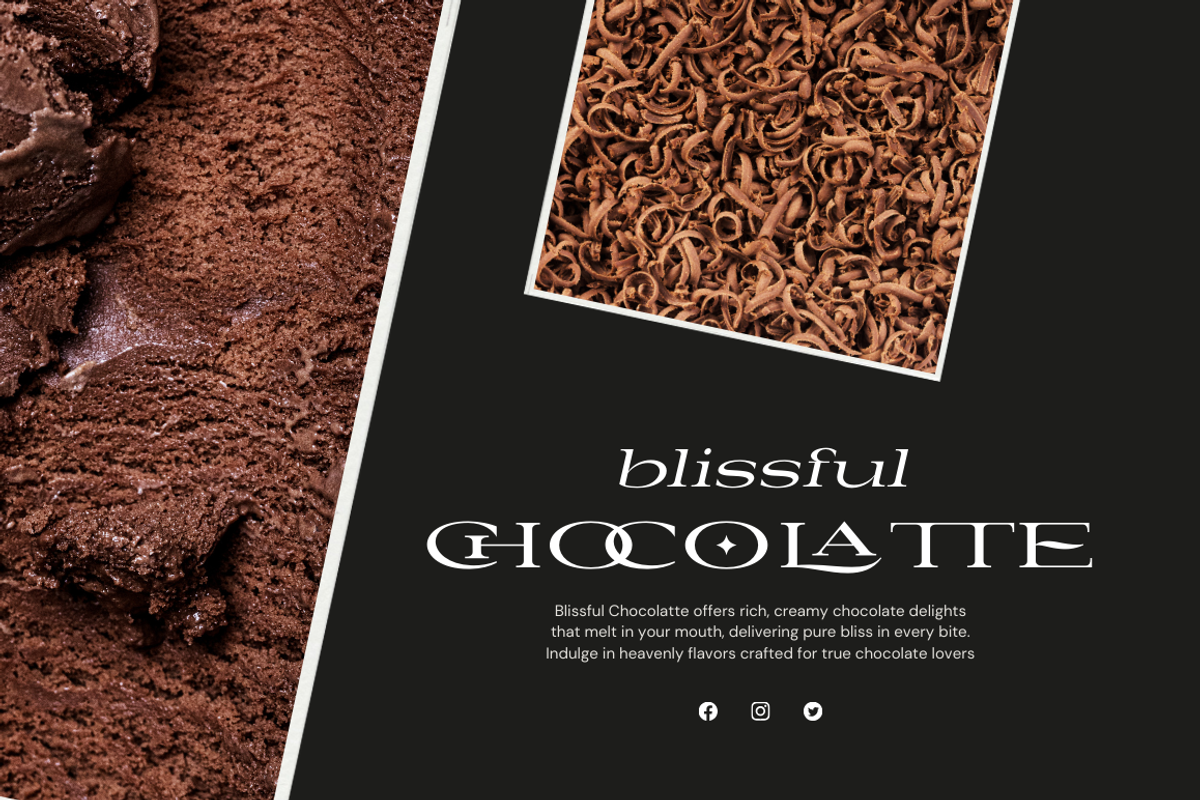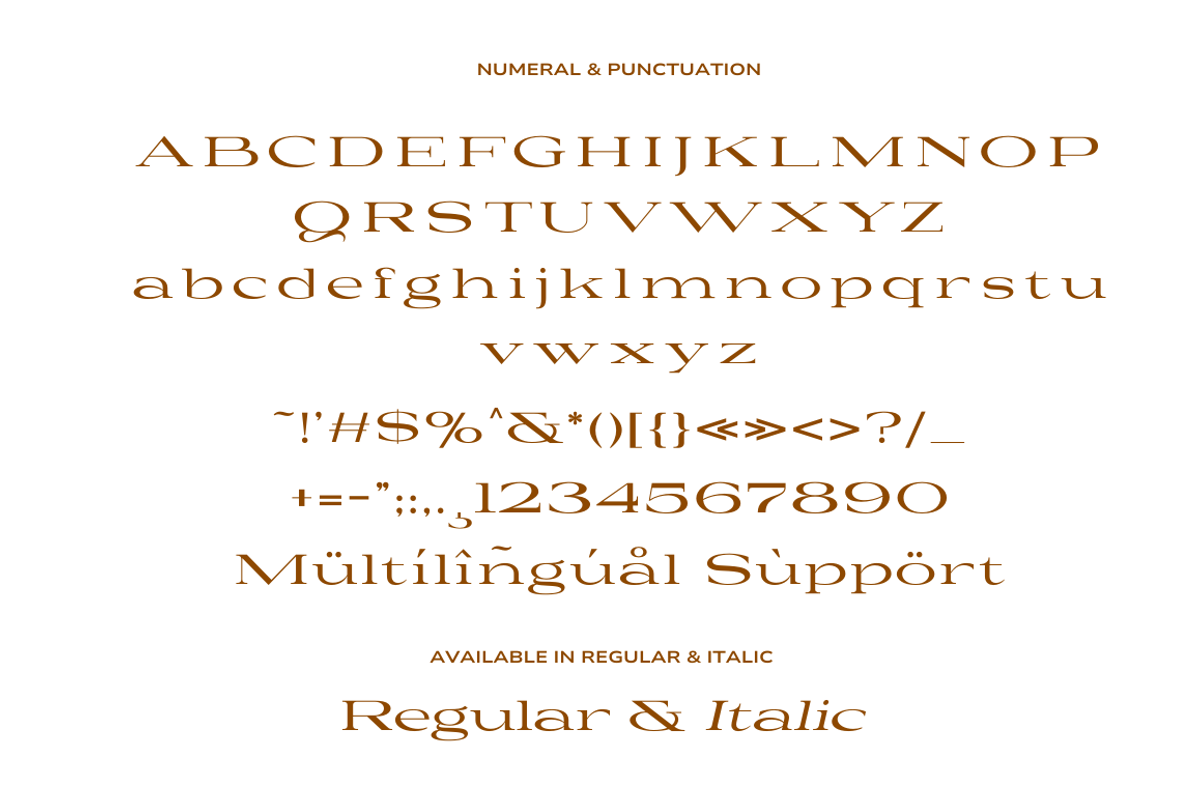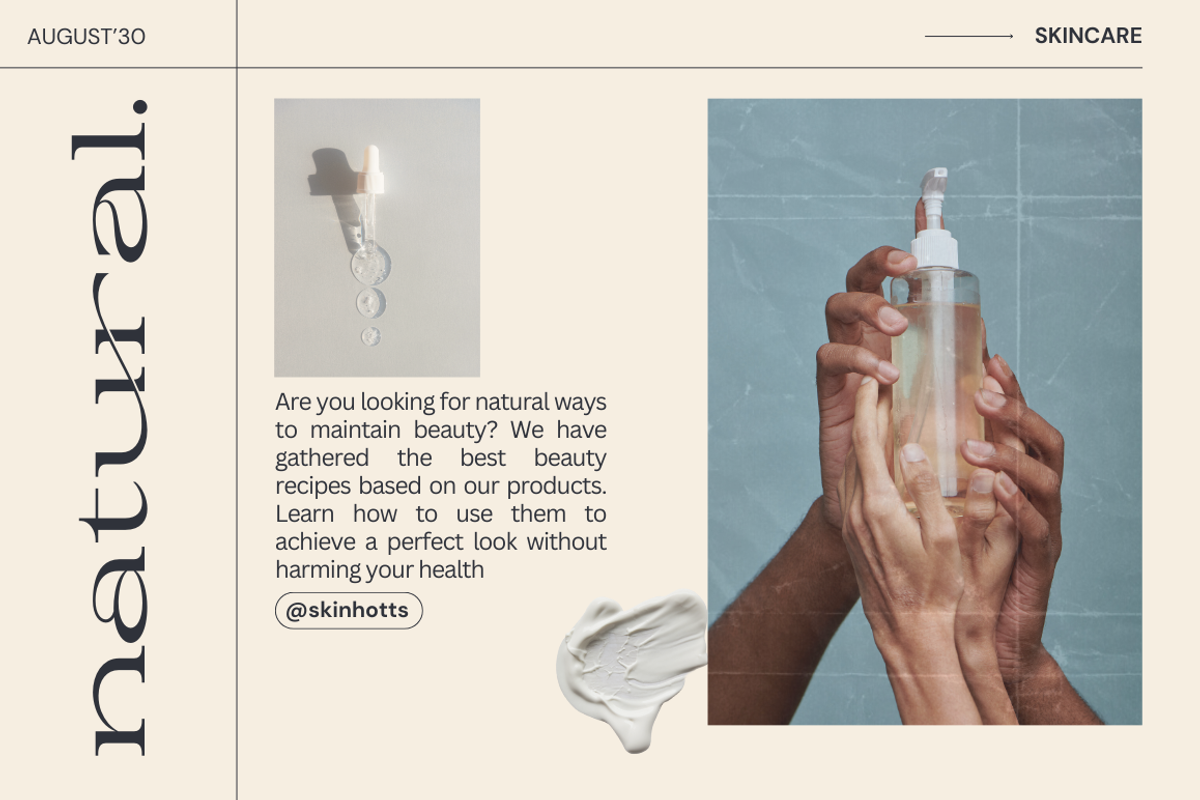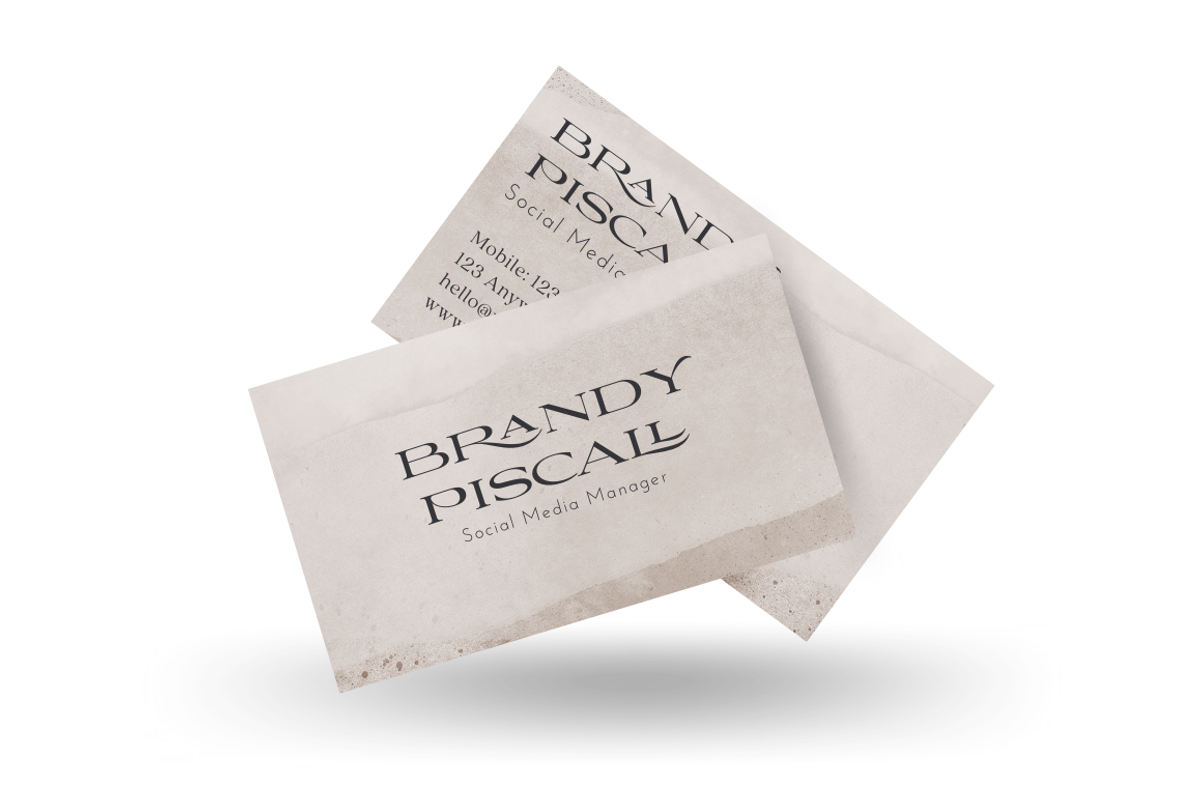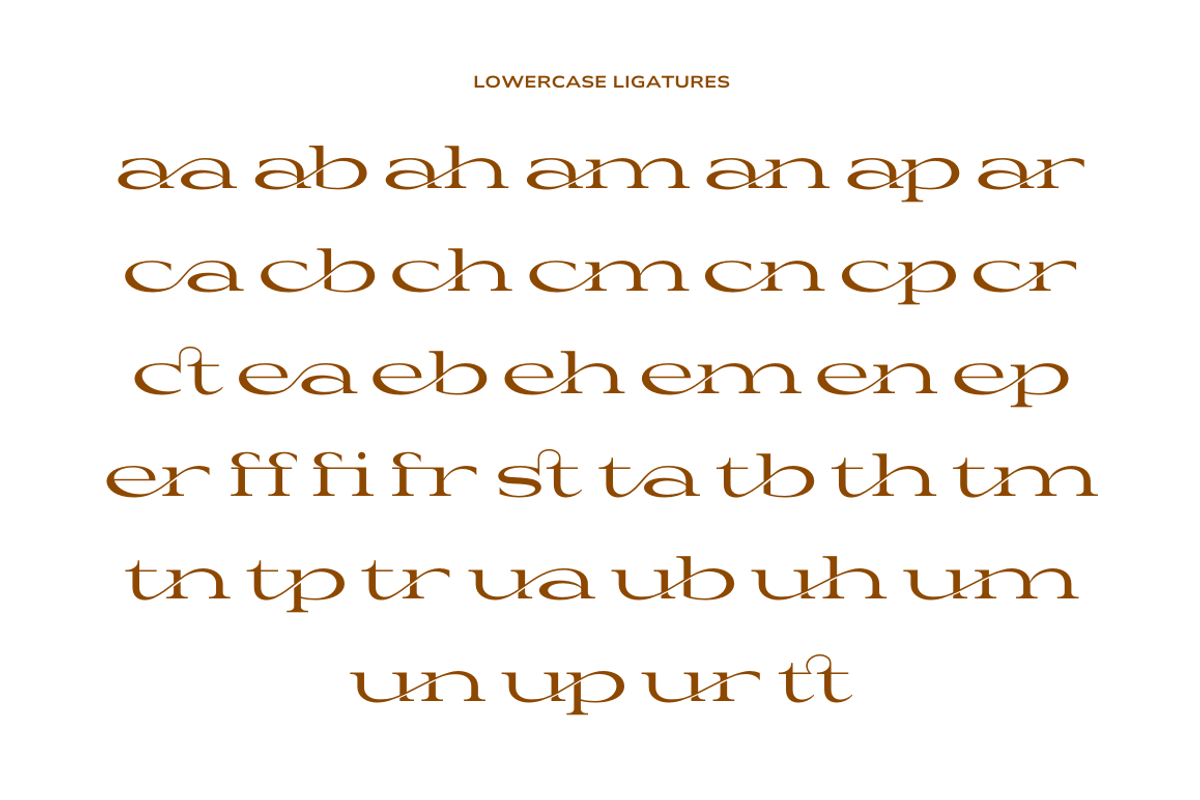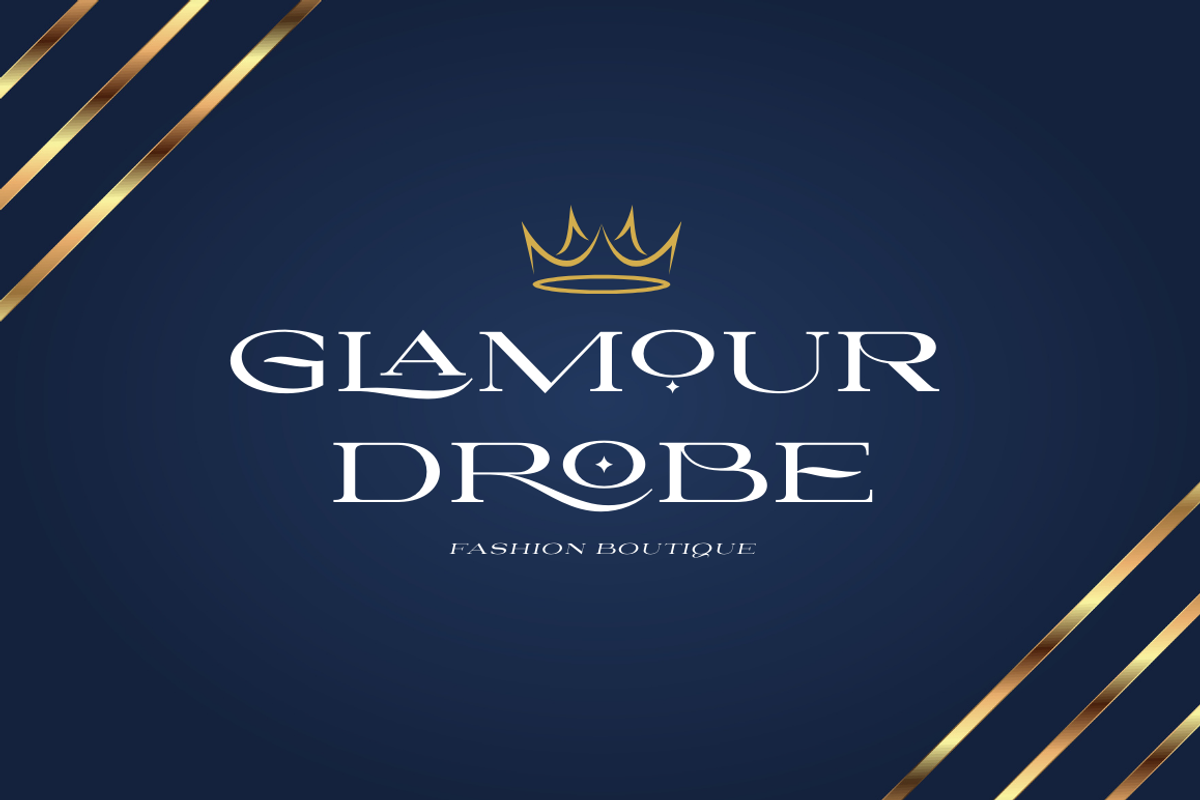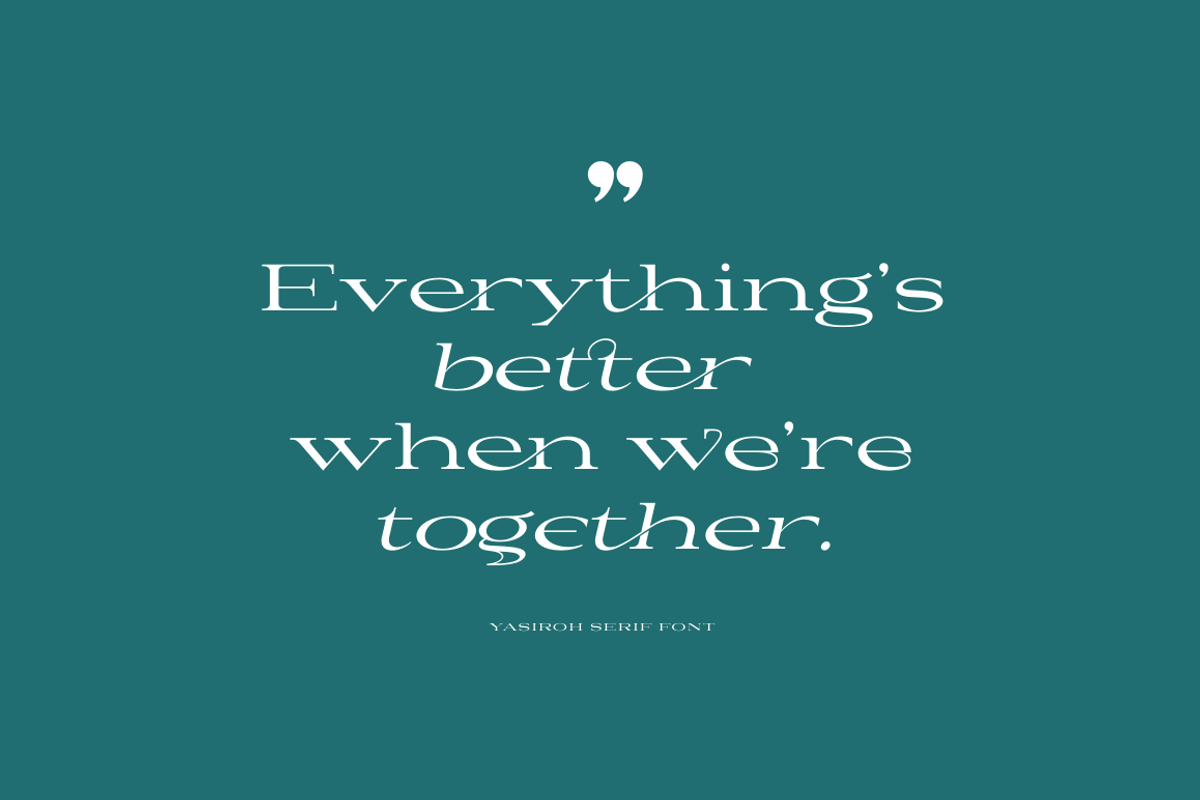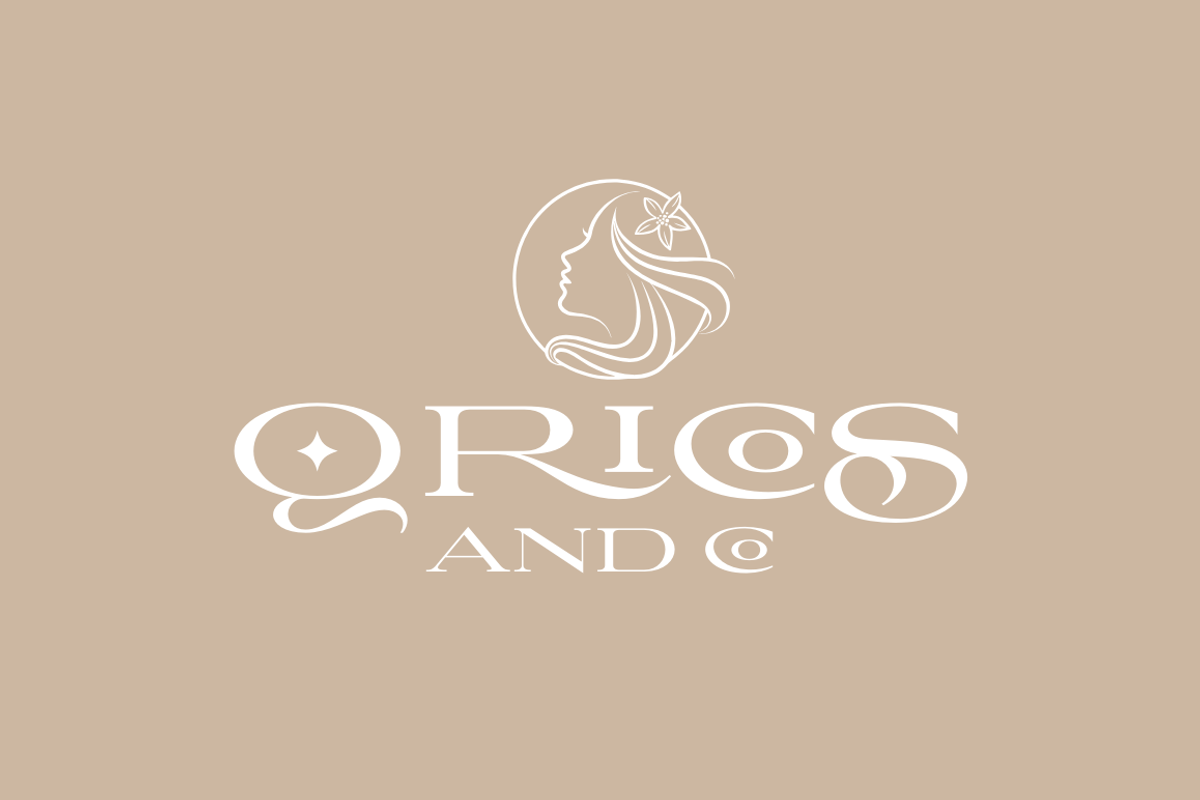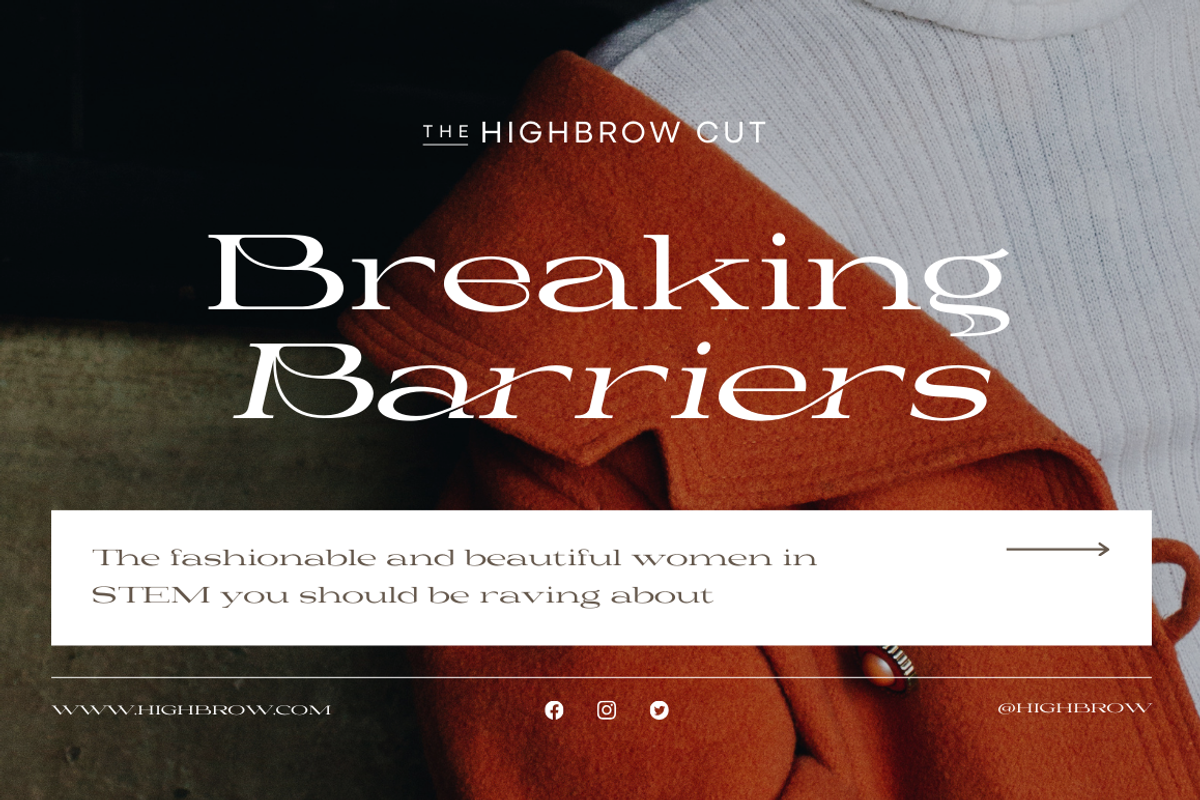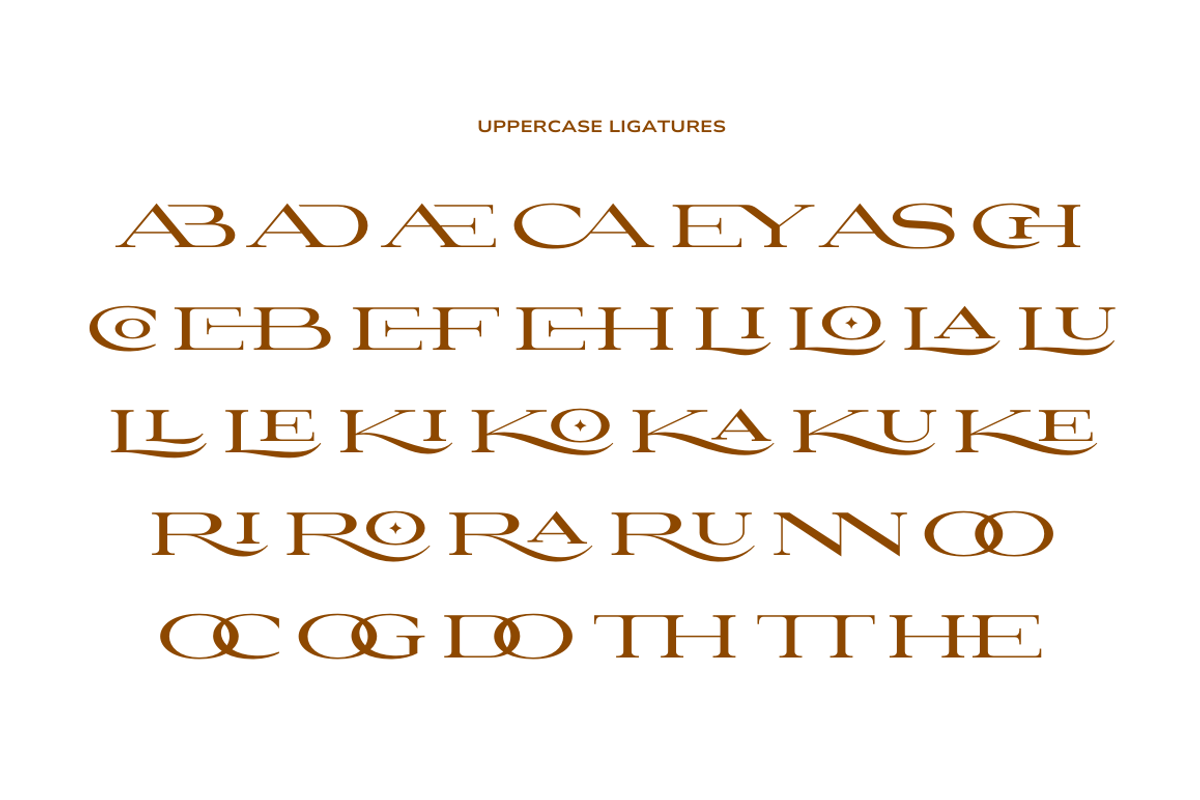
Yasiroh - Modern Serif Font
Introducing "Yasiroh," a modern ligature serif font that exudes elegance and sophistication. With its beautifully crafted ligatures and refined serifs, "Yasiroh" brings a touch of luxury and contemporary flair to any design project. Perfect for logos, invitations, branding, and editorial design, this font offers a harmonious blend of modern aesthetics and classic charm. Elevate your creations with the stylish and graceful appeal of "Yasiroh."
- Regular & Italic Style